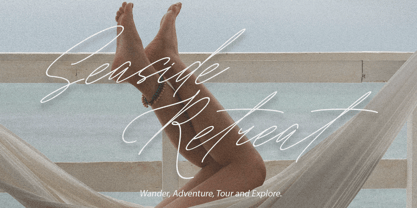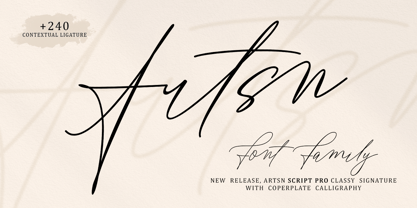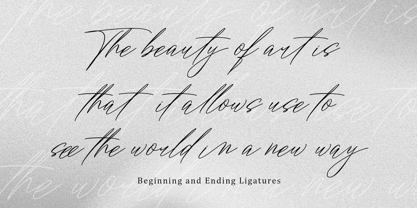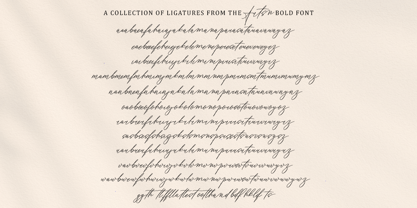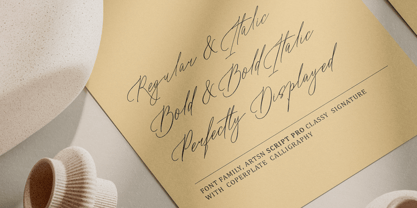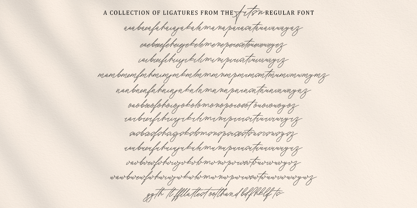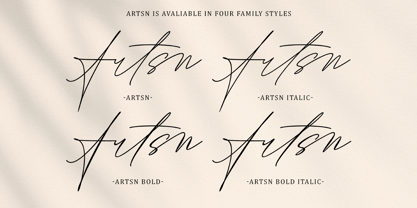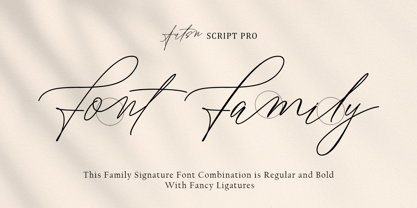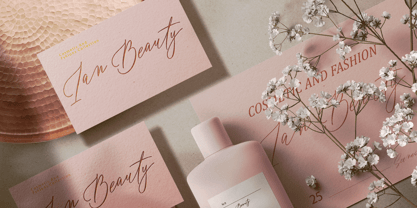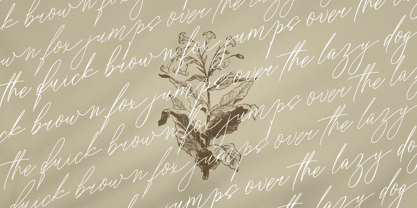
Artsn Script Pro
The Artsn Script Pro Font Family was designed by T Haikal Budillah and published by HKL Studio. Artsn Script Pro contains 4 styles and family package options.
Artsn Signature Typeface with Latin Pro
Artsn is a stunning signature font, designed to create an elegant and luxurious impression in every letter. With a smooth typographic style and natural touch, Artsn is the right choice for creating designs that look personal, professional, and classy.
This font comes in four main variants: Regular, Italic, Bold, and Bold Italic, and is equipped with Latin Pro which ensures wider international character compatibility, so this font can be used in various languages ​​and writing formats.
With a total of 240 ligatures and various letter alternatives, Artsn provides flexibility and uniqueness in every design project. These ligatures not only beautify the appearance of the letters, but also provide a more natural flow between letters, while the letter alternatives allow you to customize each design to look more exclusive and luxurious. This makes Artsn very suitable for applications such as wedding invitations, luxury branding, logo design, fashion editorials, and other creative projects that require elegant and unique typographic elements.
Overall, Artsn is a distinctive font with a touch of elegance and full of character, ideal for bringing a luxurious and personal feel to every written word.